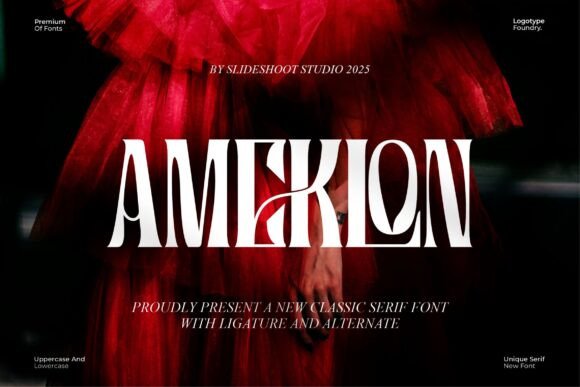
Introducing Ameklon Font: The Epitome of Elegance and Sophistication
In the world of typography, fonts play a crucial role in conveying the tone and personality of a brand. A well-crafted font can elevate a brand’s visual identity, making it more recognizable and memorable. One such font that has been making waves in the design community is Ameklon, a bold, dramatic serif font that exudes sculptural elegance and unique ligatures. In this article, we’ll delve into the world of Ameklon Font, exploring its features, applications, and what makes it an ideal choice for high-end branding and design projects.
The Ameklon Font: A Masterpiece of Typography
Ameklon is a serif font that boasts a distinctive, sculptural quality, setting it apart from more traditional serif fonts. Its refined letterforms are meticulously crafted to convey a sense of high fashion and editorial flair, making it an ideal choice for luxury packaging, magazine titles, and statement branding. The font’s bold, dramatic strokes are balanced by elegant curves, creating a sense of sophistication and refinement.
One of the standout features of Ameklon is its unique ligatures, which add an extra layer of elegance to the font. Ligatures are special characters that combine two or more letters into a single glyph, creating a seamless, connected look. In Ameklon, these ligatures are thoughtfully designed to enhance the overall aesthetic of the font, making it perfect for high-end branding and editorial applications.
Applications of Ameklon Font
Ameklon’s versatility and elegance make it suitable for a wide range of design applications. Some of the most notable uses of Ameklon include:
- Magazine Titles: Ameklon’s bold, dramatic strokes and elegant curves make it an ideal choice for magazine titles, adding a touch of sophistication and glamour to any publication.
- Luxury Packaging: The font’s refined letterforms and unique ligatures make it perfect for luxury packaging, where high-end branding and visual identity are paramount.
- Statement Branding: Ameklon’s sculptural elegance and dramatic strokes make it an excellent choice for statement branding, where a bold, eye-catching font is required to make a lasting impression.
The Benefits of Using Ameklon Font
So, what sets Ameklon apart from other fonts, and why should designers consider using it for their projects? Here are just a few benefits of using Ameklon:
- Unique and Memorable: Ameklon’s distinctive, sculptural quality makes it a unique and memorable font, perfect for brands looking to stand out in a crowded market.
- Elegant and Sophisticated: The font’s refined letterforms and elegant curves convey a sense of high-end sophistication, making it ideal for luxury brands and high-end applications.
- Versatile: Ameklon’s versatility makes it suitable for a wide range of design applications, from magazine titles to luxury packaging and statement branding.
Tips for Using Ameklon Font Effectively
While Ameklon is an exceptional font, it’s essential to use it effectively to maximize its impact. Here are a few tips for using Ameklon:
- Use it Sparingly: Ameklon’s bold, dramatic strokes can be overwhelming if used excessively. Use it sparingly to create a lasting impression.
- Pair it with Neutral Fonts: Pair Ameklon with neutral fonts to create contrast and visual interest.
- Experiment with Ligatures: Take advantage of Ameklon’s unique ligatures to add an extra layer of elegance to your design.
The Future of Typography: Ameklon and Beyond
The world of typography is constantly evolving, with new fonts and design trends emerging regularly. As we look to the future, it’s clear that fonts like Ameklon will continue to play a vital role in shaping the visual identity of brands. With its unique blend of elegance, sophistication, and drama, Ameklon is poised to become a staple of high-end branding and design.
As designers, we are constantly seeking new ways to push the boundaries of creativity and innovation. With fonts like Ameklon, we have the tools to create visually stunning designs that capture the essence of a brand. Whether you’re a seasoned designer or just starting out, Ameklon is definitely worth exploring.
In conclusion, Ameklon Font is a bold, dramatic serif font that exudes elegance and sophistication. Its refined letterforms, unique ligatures, and sculptural quality make it an ideal choice for high-end branding, luxury packaging, and statement branding. With its versatility, elegance, and unique character, Ameklon is sure to become a favorite among designers and brands looking to make a lasting impression.
FAQs About Ameklon Font
- What is Ameklon Font? Ameklon Font is a bold, dramatic serif font with sculptural elegance and unique ligatures.
- What is Ameklon Font used for? Ameklon Font is ideal for high-end branding, luxury packaging, magazine titles, and statement branding.
- What makes Ameklon Font unique? Ameklon Font’s unique blend of elegance, sophistication, and drama, along with its refined letterforms and unique ligatures, make it a standout font.